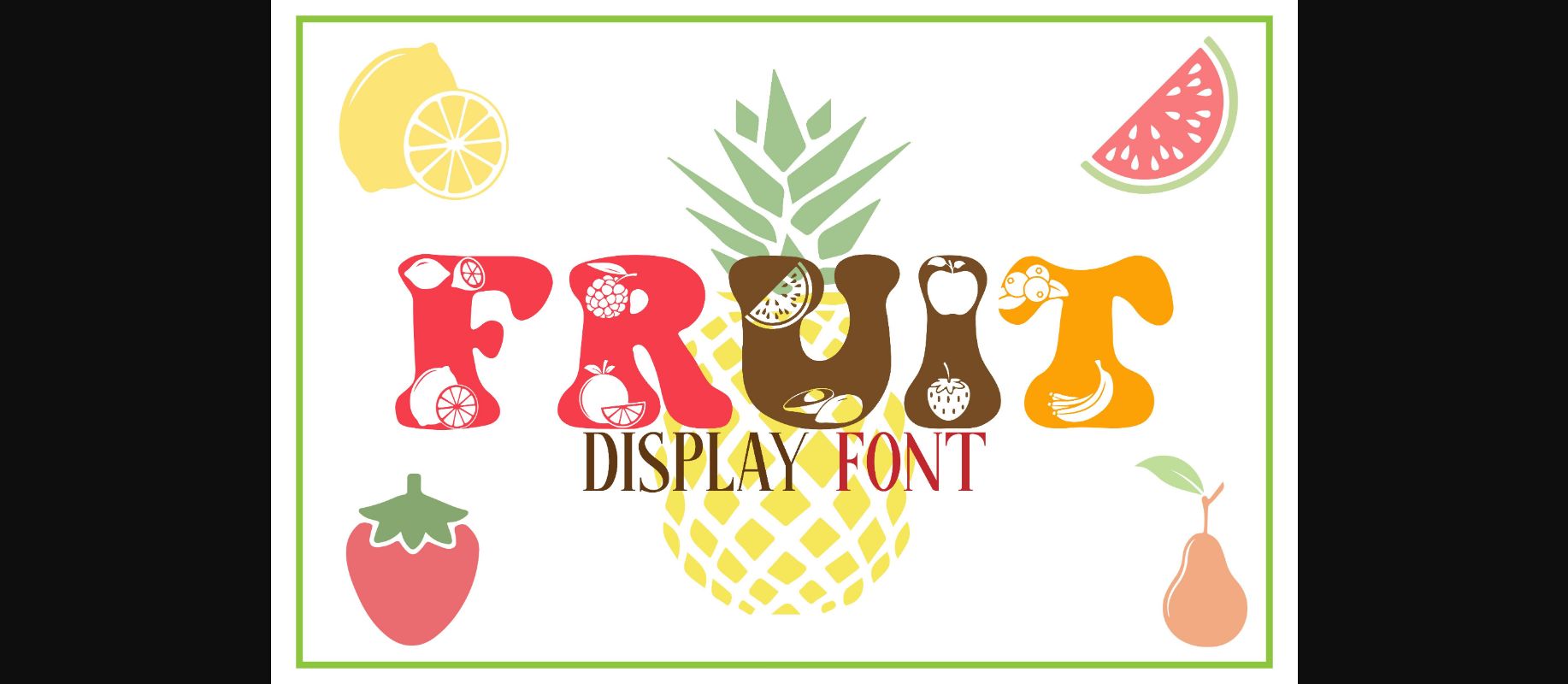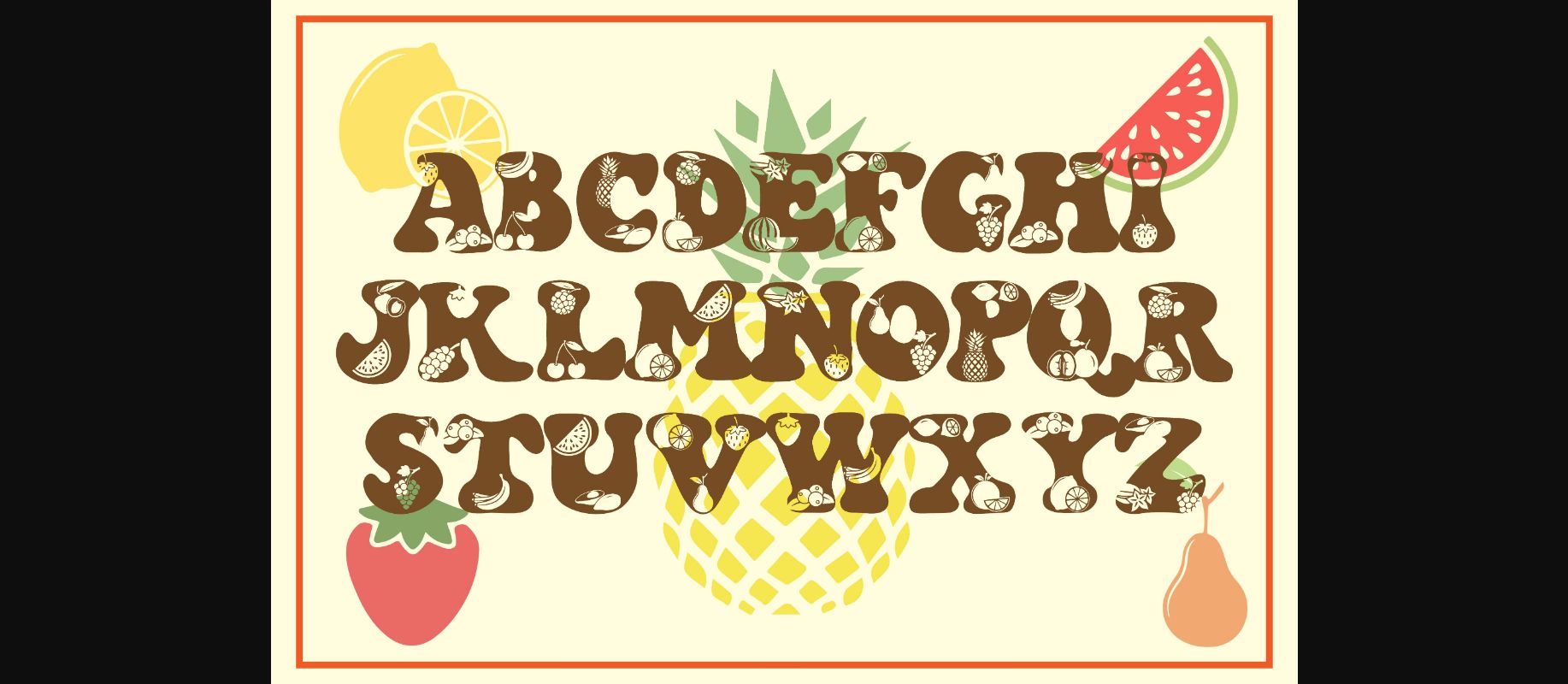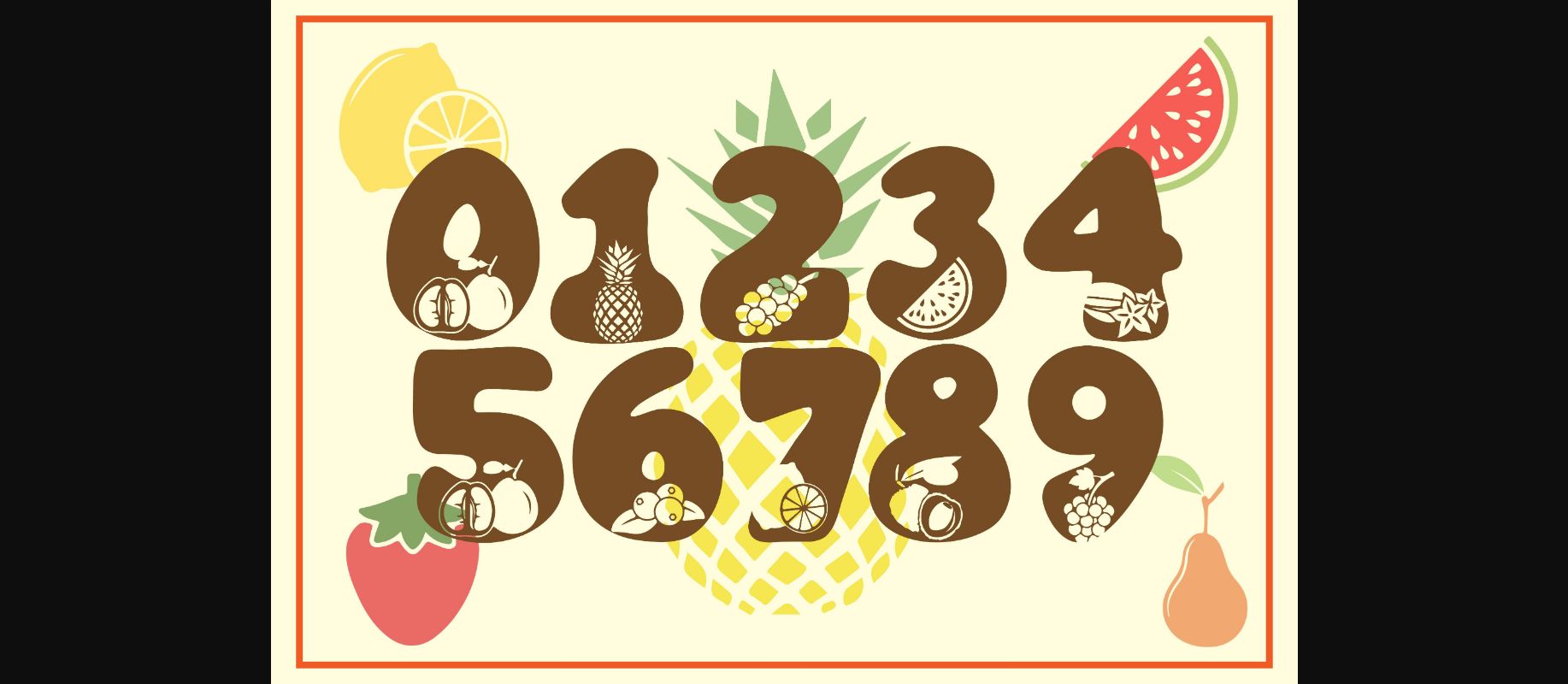
About Fruit Font
Fruit is a thick lettered and incredibly unique decorative font. It can be used for a large variety of projects and it will definitely brighten up your crafty ideas.